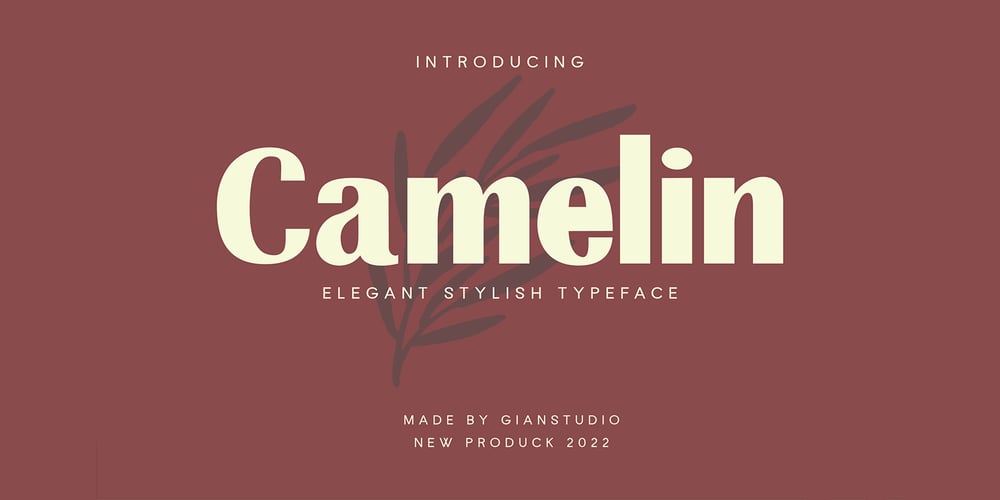
Camelin Font Family was designed by Afri Giani and published by Gian Studio. Camelin contains 1 styles and family package options. Introducing Camelin sant display is a complete typeface that is modern, simple and clean. As a typographic display it is useful for posters, logotypes, titles and short text in general.This font is easy to read and bold, easy to play. the embellished serif of the hat is slightly different from the usual hat to create an alternative glyph. We also designed an attractive uppercase set inside, to enhance your design.Enjoy!